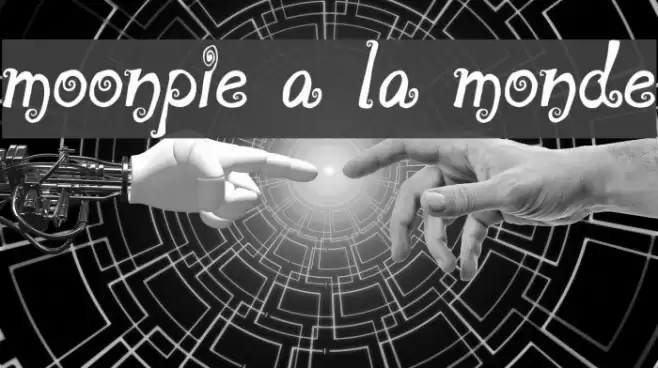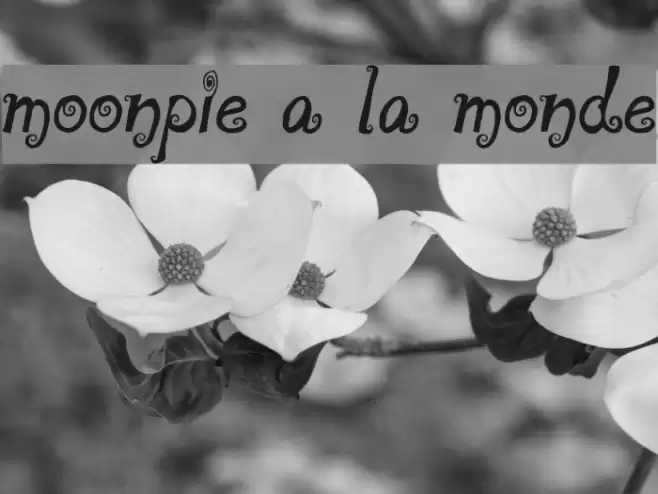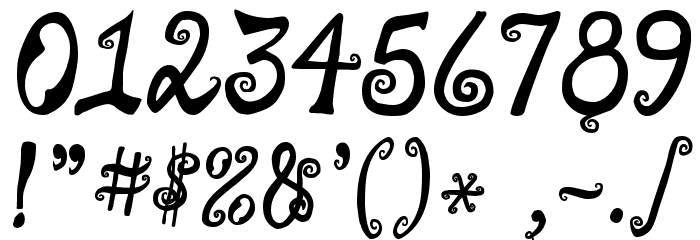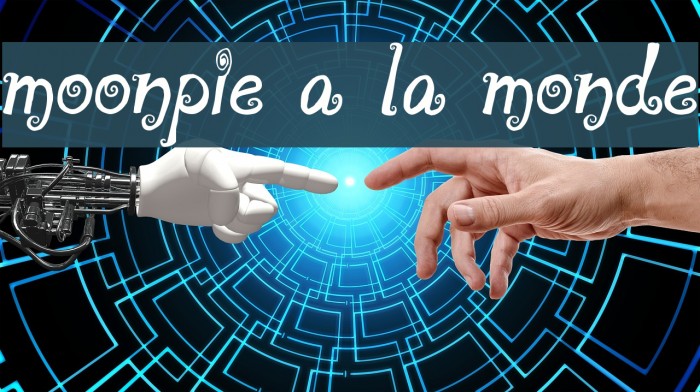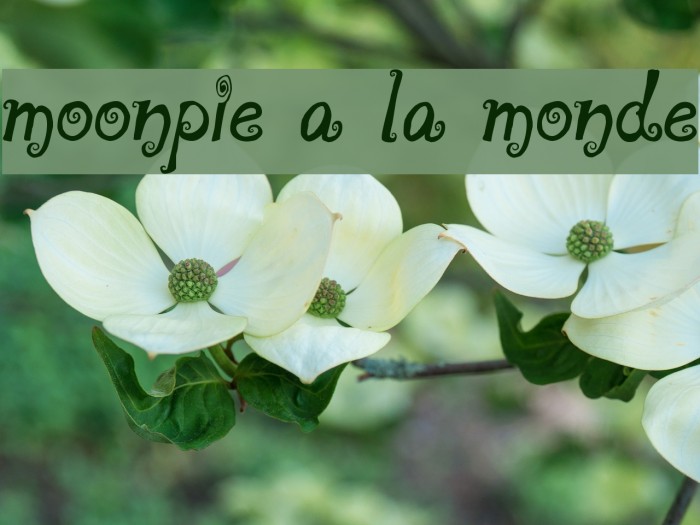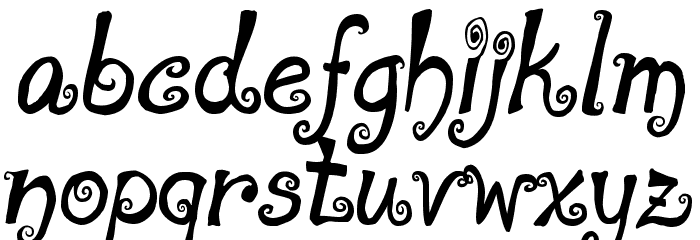
moonpie a la monde Font
moonpie a la monde Description
This whimsical and playful font features a unique and decorative style with curly and swirly embellishments on each character. The uppercase letters are bold and expressive, with exaggerated serifs and playful curls that give them a lively appearance. The lowercase letters maintain this whimsical style, with some characters featuring loops and swirls that add to the font's charm. The numbers are equally playful, with distinctive curves and flourishes that make them stand out. Special characters continue this theme, incorporating swirls and decorative elements that enhance the overall aesthetic. This font is perfect for projects that require a fun and creative touch, such as children's books, invitations, or playful branding.
A whimsical and decorative font with playful curls and swirls from Round fonts.
- Proposed Projects: Ideal for children's books, playful invitations, and creative branding.
- Overall Style: Playful, Whimsical, Decorative
- Use Case: Headlines, Logos, Invitations